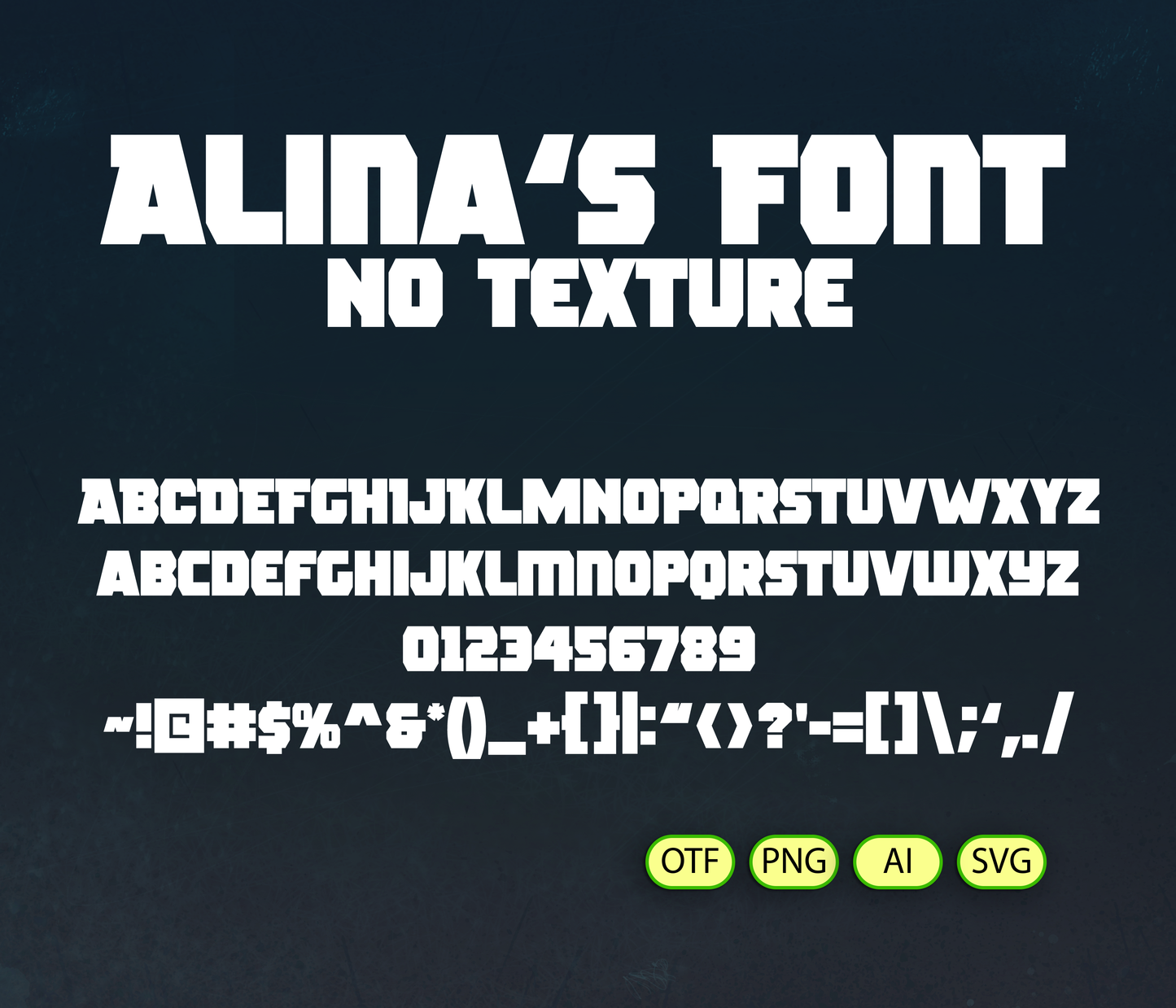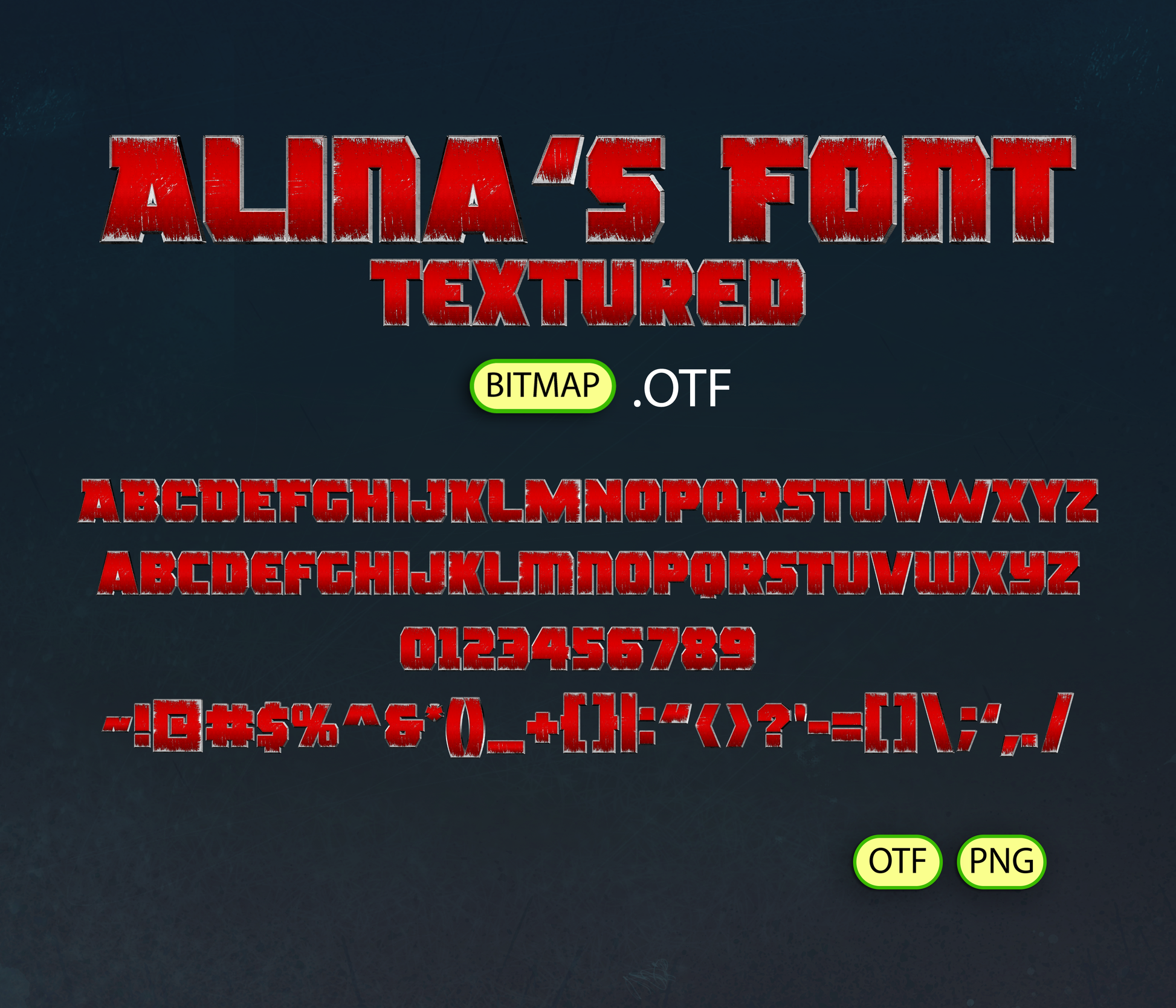
Merc with a Mouth Font Textured
Welcome to a typography escapade as daring and irreverent as the Merc with a Mouth himself. The Rebel Hero Textured Font is not just a collection of characters; it’s an embodiment of the audacious spirit of the most unconventional antihero. Designed with the same raw energy and punchy humor that Rebel Hero brings to the screen, this font lets you inject a bit of his chaos into every word, perfect for fans who like their text as textured as this iconic character's persona.
The Rebel Hero Textured Font answers the call of creatives everywhere who ask, "How can I add more action to my designs?" With each letter and symbol drawing inspiration directly from the Rebel Hero action, you'll get that gritty, bold feel that's as unmistakable as his red and black suit. This comprehensive font features a variety of characters, each crafted to bring the same impact and attitude synonymous with the world’s most lovable mercenary.